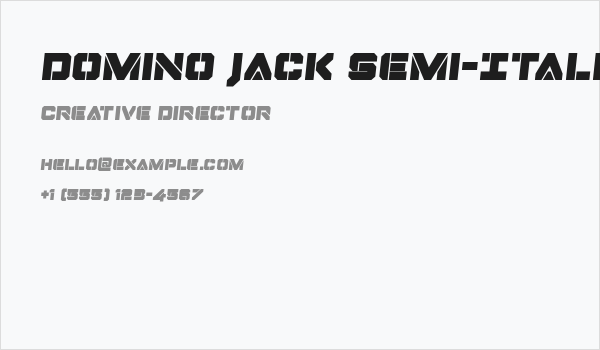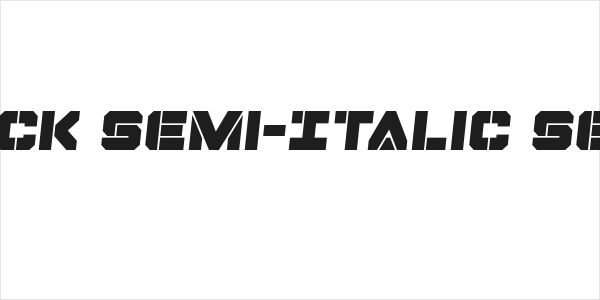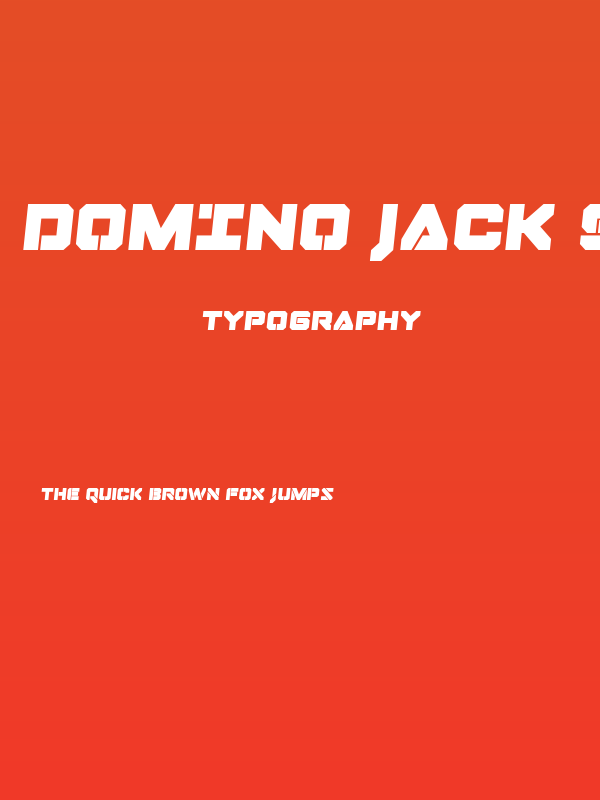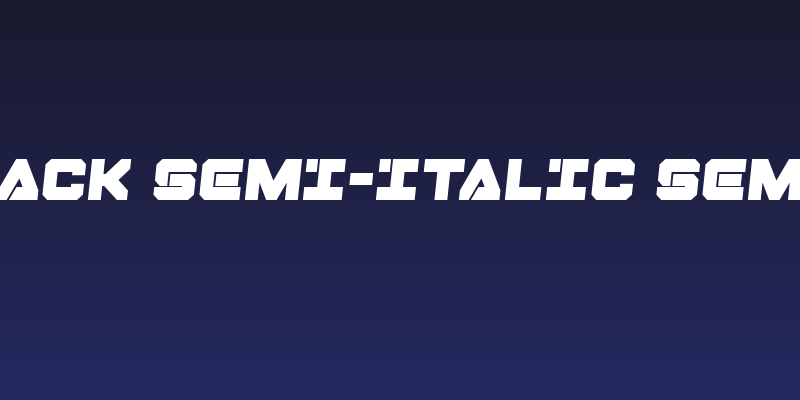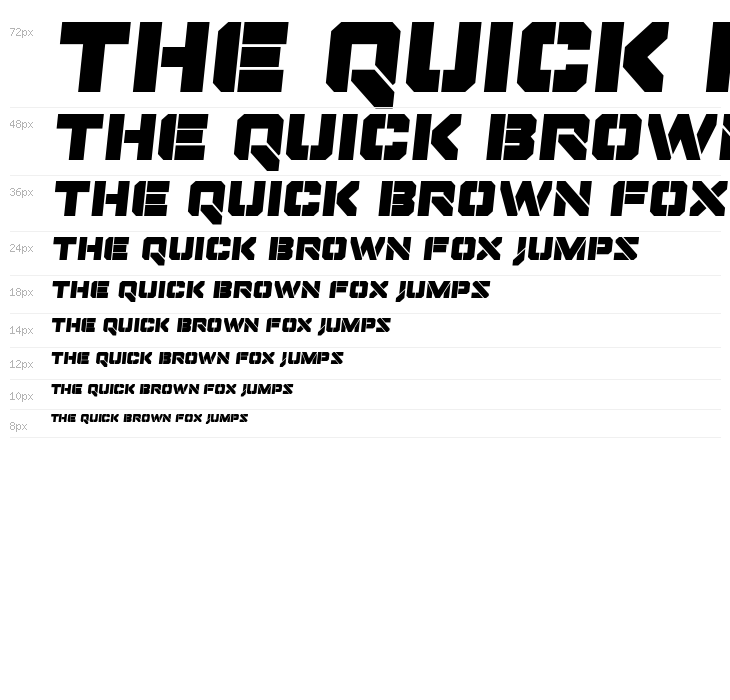
Domino Jack Semi-Italic Font
Domino Jack Semi-Italic Description
This font exhibits a bold and angular design with a semi-italic slant, giving it a dynamic and modern appearance. The characters are constructed with sharp, geometric edges, creating a sense of movement and energy. The uppercase and lowercase letters maintain a consistent style, with a slight forward tilt that enhances the italic effect. The numbers and special characters follow the same design principles, ensuring uniformity across all glyphs. This font's boldness and unique style make it stand out, suitable for projects that require a strong visual impact.
| Proposed Projects | Ideal for sports branding, action-themed posters, video game titles, and dynamic logo designs. |